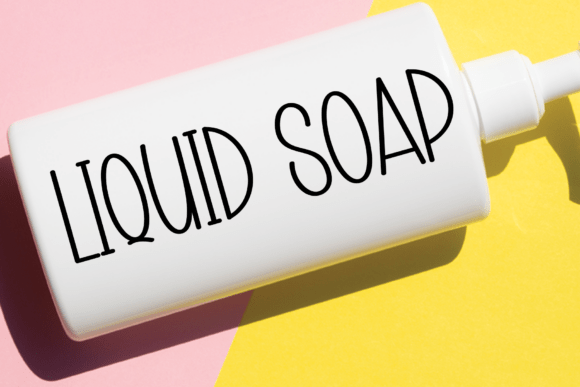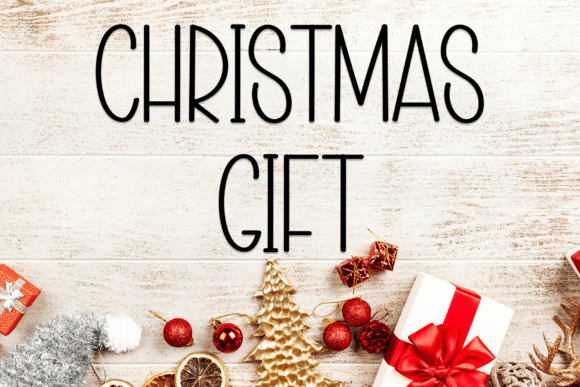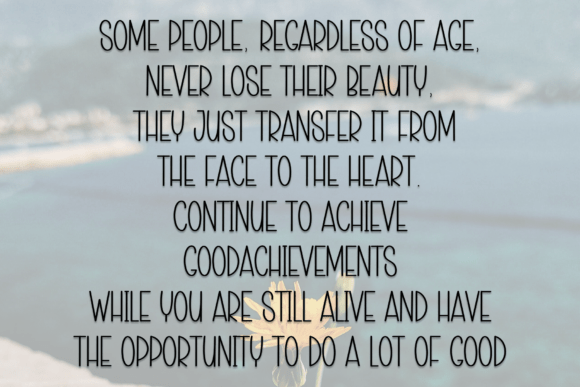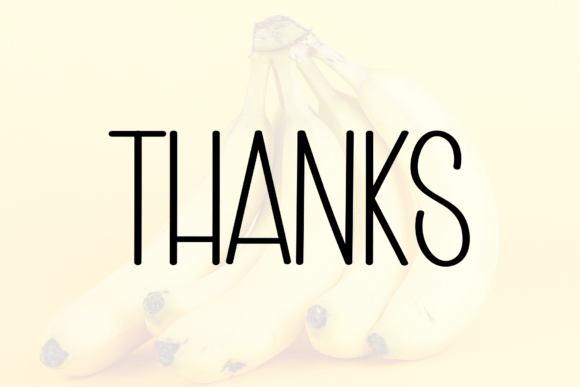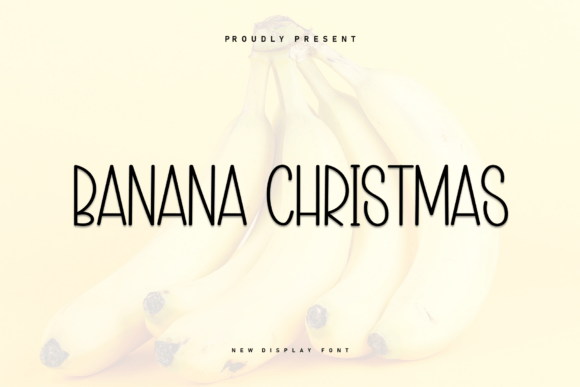
Introducing Banana Christmas Font: The Perfect Addition to Your Holiday Designs
Are you looking for a font that will make your holiday designs stand out? Look no further than the Banana Christmas Font! This minimal and neat font is perfect for adding a touch of festive flair to your projects. In this article, we’ll take a closer look at the features and benefits of the Banana Christmas Font, and explore how you can use it to take your designs to the next level.
A Minimal and Neat Font for Holiday Designs
The Banana Christmas Font is a clean and simple font that is perfect for a wide range of holiday designs. Its minimal style makes it easy to read and versatile enough to be used in a variety of contexts. Whether you’re creating a holiday card, a festive flyer, or a merry website, this font is sure to add a touch of elegance and sophistication.
Matching with a Wide Range of Projects
One of the best things about the Banana Christmas Font is its versatility. It can easily be matched to an incredibly large set of projects, making it a great addition to your font library. Whether you’re working on a holiday-themed project, or just want to add a touch of festive flair to your designs, this font is sure to fit the bill.
Adding a Touch of Festive Flair to Your Designs
The Banana Christmas Font is perfect for adding a touch of festive flair to your designs. Its clean and simple style makes it easy to use in a variety of contexts, from holiday cards and invitations to festive flyers and brochures. And with its minimal style, you can be sure that your designs will look great in print or on screen.
The Banana Christmas Font is perfect for designers and crafters who are looking for a font that will add a touch of elegance and sophistication to their holiday designs. Whether you’re creating holiday-themed crafts, or working on a festive design project, this font is sure to be a great addition to your toolkit.
Key Features of the Banana Christmas Font
• Minimal and neat font style
• Versatile and easy to read
• Perfect for holiday designs, including cards, invitations, flyers, and more
• Can be used in a wide range of projects, from print to digital
• Great for designers and crafters who want to add a touch of festive flair to their designs
Tips for Using the Banana Christmas Font
Here are a few tips for using the Banana Christmas Font in your designs:
• Use it for headlines and titles to add a touch of festive flair
• Pair it with other fonts to create a unique and interesting design
• Experiment with different colors and textures to add depth and interest to your designs
• Use it for body text to add a touch of elegance and sophistication to your designs
In conclusion, the Banana Christmas Font is a great addition to any designer’s toolkit. Its minimal and neat style makes it perfect for a wide range of holiday designs, and its versatility makes it easy to use in a variety of contexts. Whether you’re a designer or crafter, this font is sure to help you create holiday designs that stand out. So why wait? Download the Banana Christmas Font today and start adding a touch of festive flair to your designs!
What is the Banana Christmas Font?
The Banana Christmas Font is a minimal and neat font that is perfect for holiday designs. Its clean and simple style makes it easy to read and versatile enough to be used in a variety of contexts.
What can I use the Banana Christmas Font for?
You can use the Banana Christmas Font for a wide range of holiday designs, including cards, invitations, flyers, and more. It’s perfect for designers and crafters who want to add a touch of festive flair to their designs.